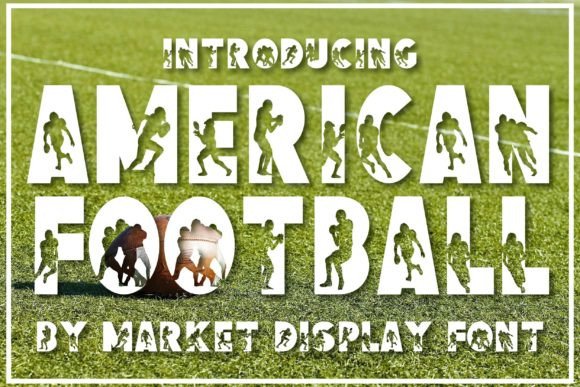
Introducing the American Football Font, the ultimate choice for all your football-inspired creations! This bold and authentic decorative font is here to elevate your designs and make them truly remarkable. Created by MDF, the American Football Font is the best font for football shirts, capturing the essence of the sport in every letter.
With its strong and impactful presence, this font is perfect for any football-related project you have in mind. Whether you're designing a logo for a sports team, creating eye-catching banners and posters, or even customizing your own football gear, the American Football Font will take your designs to the next level.
Imagine the impact this font will have on your audience. As they lay eyes on your creations, they'll instantly feel the rush of excitement and passion that comes with the game. The American Football Font brings a sense of authenticity and power, making your designs truly unforgettable.
Not only does this font capture the spirit of football, but it also adds a touch of creativity and uniqueness to your work. Stand out from the crowd with its stylish and captivating design. Each letter is intricately crafted, allowing you to create stunning typography that demands attention.
When you download the American Football Font, you're not just getting a font – you're getting a game-changer. It's the key to unlocking your creative potential and creating designs that leave a lasting impression. Whether you're a professional designer or a football enthusiast, this font is a must-have in your collection.
So why wait? Take your designs to new heights with the American Football Font. Capture the energy and excitement of the game, and watch as your creations become the talk of the town. Download this font today and experience the power it brings to your designs. Get ready to score big with the best font for football shirts!